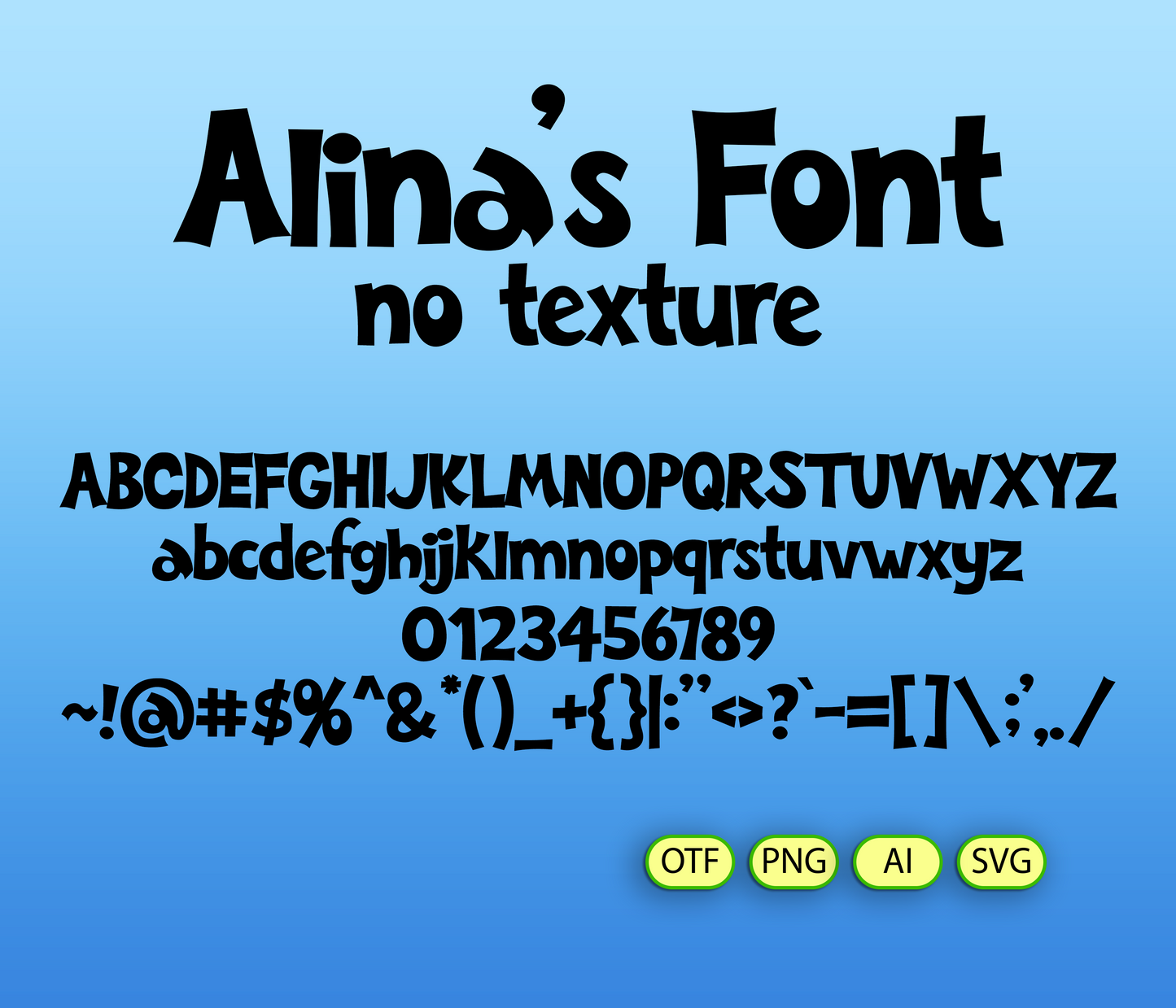
Science Explorer Font
Step into the extraordinary world of microscopic adventures and cosmic discoveries with our Science Explorer font! This specially crafted typeface brings to life the magic of unconventional learning journeys, where classrooms know no boundaries and education becomes an incredible expedition. Perfect for teachers, educational content creators, and anyone wanting to add scholastic wonder to their projects.
Our Science Explorer font features whimsical, energetic characters that capture the excitement of learning through extraordinary field trips. Ideal for:
1. Educational Adventures: Create engaging worksheets, experiment guides, and learning materials that transform complex concepts into exciting discoveries
2. Classroom Expeditions: Design vibrant posters, banners, and decorations for science fairs, museum trips, and special learning events
3. Teaching Resources: Develop dynamic presentations, educational aids, and visual guides that make learning an unforgettable journey
4. Digital Learning: Transform educational websites and social media with headers and graphics that inspire curiosity and wonder
5. Creative Projects: Perfect for science club materials, classroom decorations, and educational crafts that spark imagination
Our font celebrates the spirit of scientific exploration and the joy of learning through extraordinary experiences. Whether you're creating materials for classroom experiments, designing educational resources, or adding whimsical charm to teaching tools, this font transforms every project into an amazing journey of discovery.